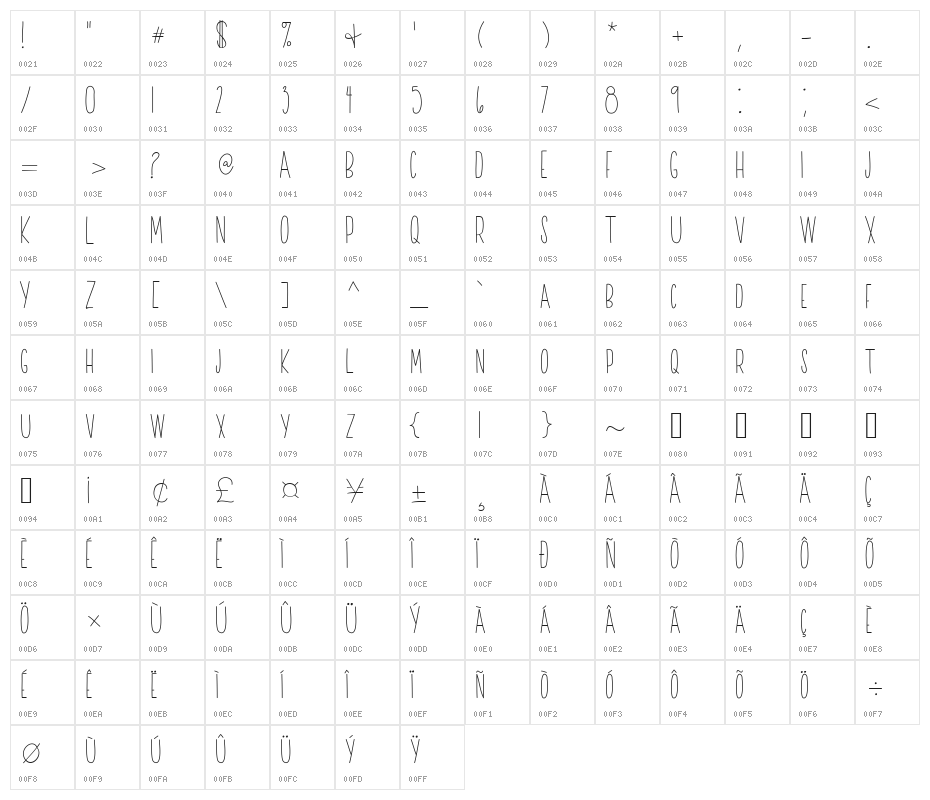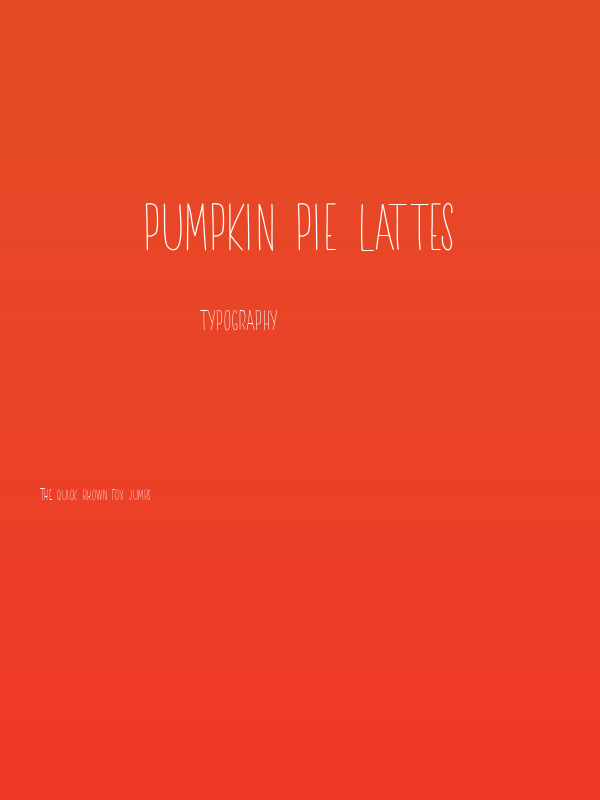
Pumpkin Pie Lattes Font
Pumpkin Pie Lattes Description
This font features a playful and whimsical handwritten style, characterized by tall, narrow letters with a slight tilt, giving it a casual and friendly appearance. The strokes are consistent in thickness, providing a uniform look across all characters. The uppercase and lowercase letters maintain a cohesive design, with rounded edges and a smooth flow. Numbers and special characters are crafted with the same attention to detail, ensuring readability and aesthetic appeal. This font exudes a lighthearted and approachable vibe, making it suitable for a variety of creative projects.